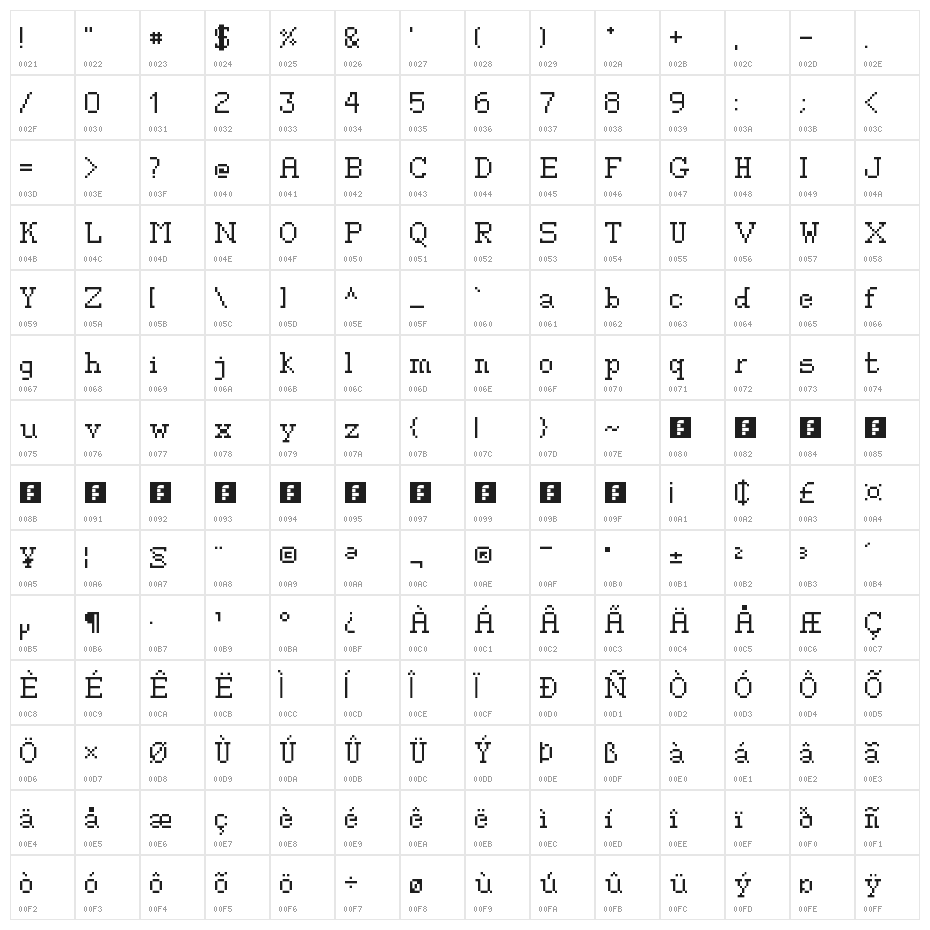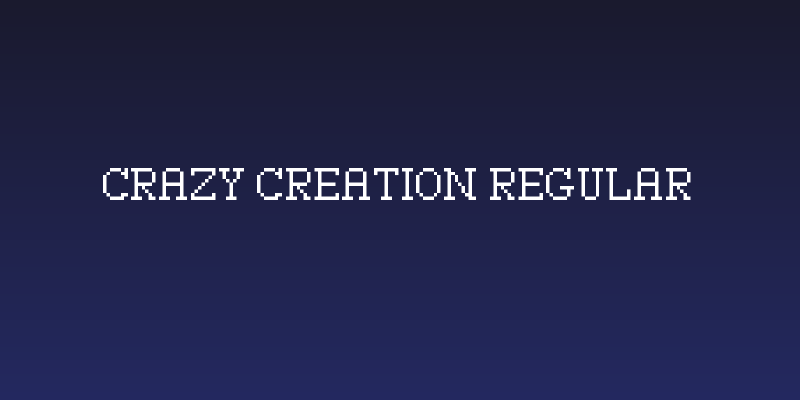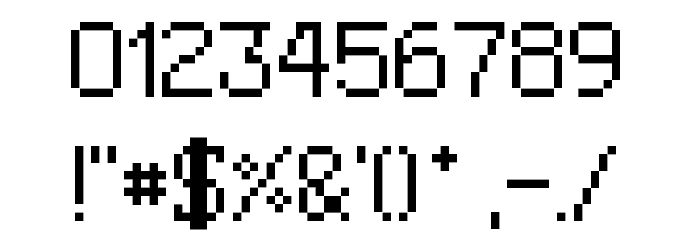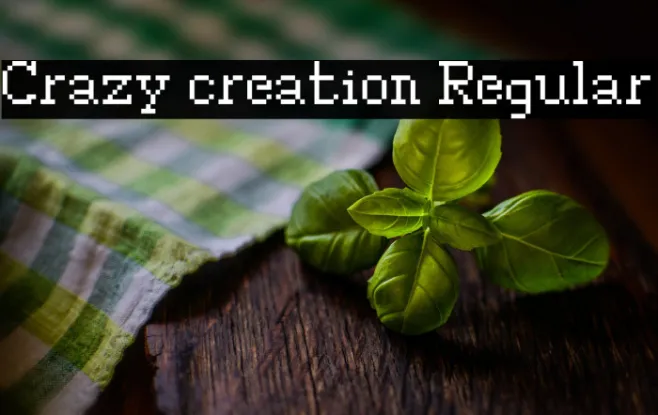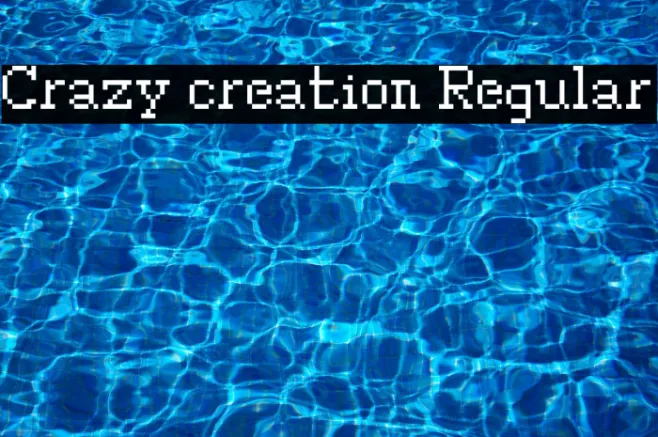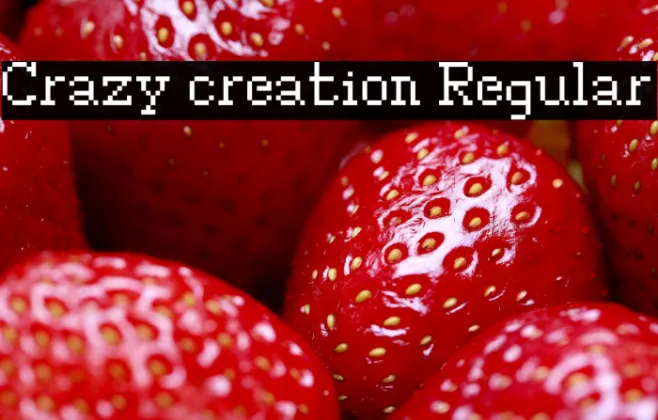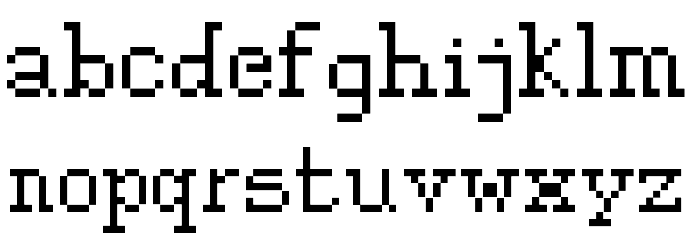
Crazy creation Regular Font
Crazy creation Regular Description
This font features a pixelated, blocky design reminiscent of early digital displays and retro video games. Each character is composed of small square blocks, giving it a distinctly digital and mechanical appearance. The uppercase and lowercase letters maintain a consistent height, contributing to a uniform look. Numbers and special characters follow the same pixelated style, ensuring a cohesive aesthetic throughout. The font's simplicity and geometric structure make it highly legible, even at smaller sizes. Its nostalgic charm and straightforward design make it suitable for projects that aim to evoke a sense of retro technology or digital minimalism.
| Use Case | Headlines, Logos, Digital displays |
| Proposed Projects | Ideal for retro video game designs, digital art projects, tech-themed posters, and nostalgic branding. |